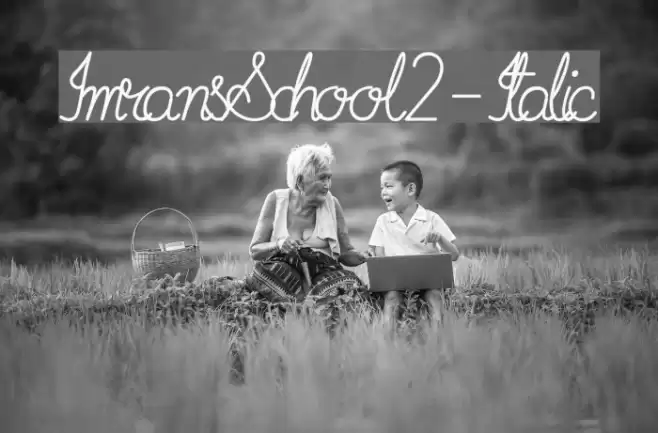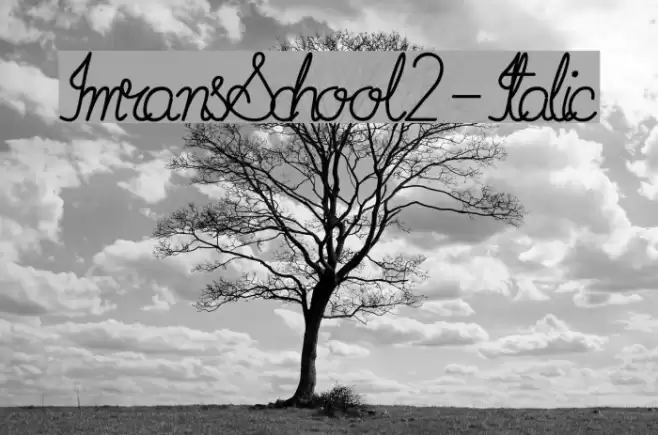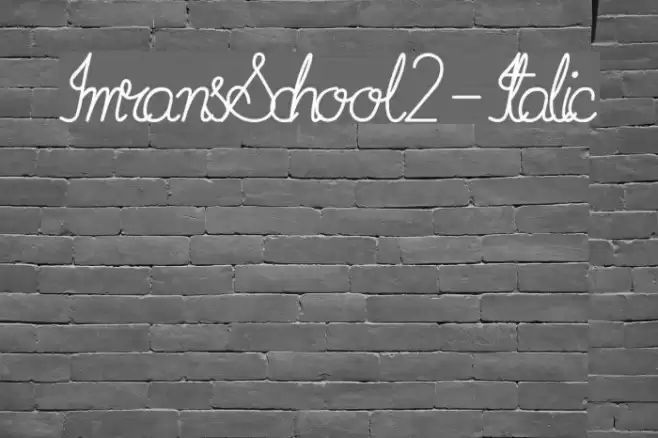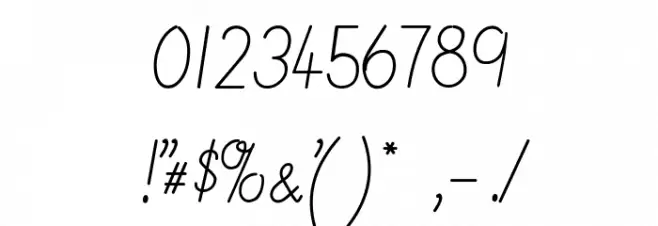
ImransSchool2-Italic Font
ImransSchool2-Italic Description
This font features an elegant, flowing script style with a distinct italic slant, giving it a sophisticated and graceful appearance. The characters are interconnected, creating a seamless and fluid look that is both stylish and readable. The uppercase letters are tall and slender, while the lowercase letters maintain a consistent flow, enhancing the script's elegance. The numerals are clear and maintain the same flowing style, making them easily distinguishable. Special characters are designed to complement the overall aesthetic, ensuring a cohesive look across all text elements. This font is ideal for projects that require a touch of elegance and sophistication.
An elegant, flowing script font with an italic slant from Uncategorized fonts.
- Proposed Projects: Wedding invitations, elegant branding, greeting cards, and formal event programs.
- Overall Style: Elegant, Sophisticated
- Use Case: Headlines, Invitations, Branding